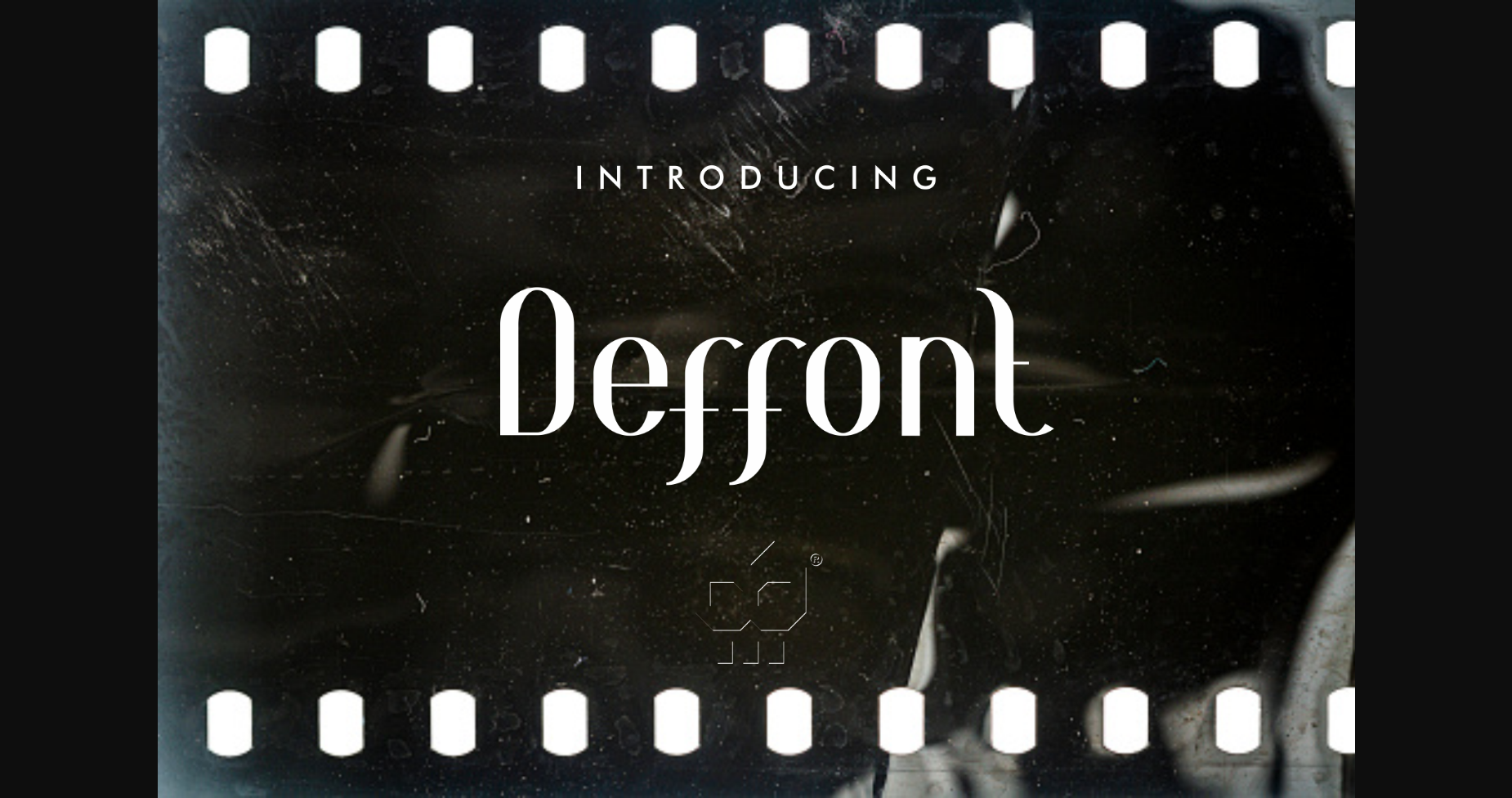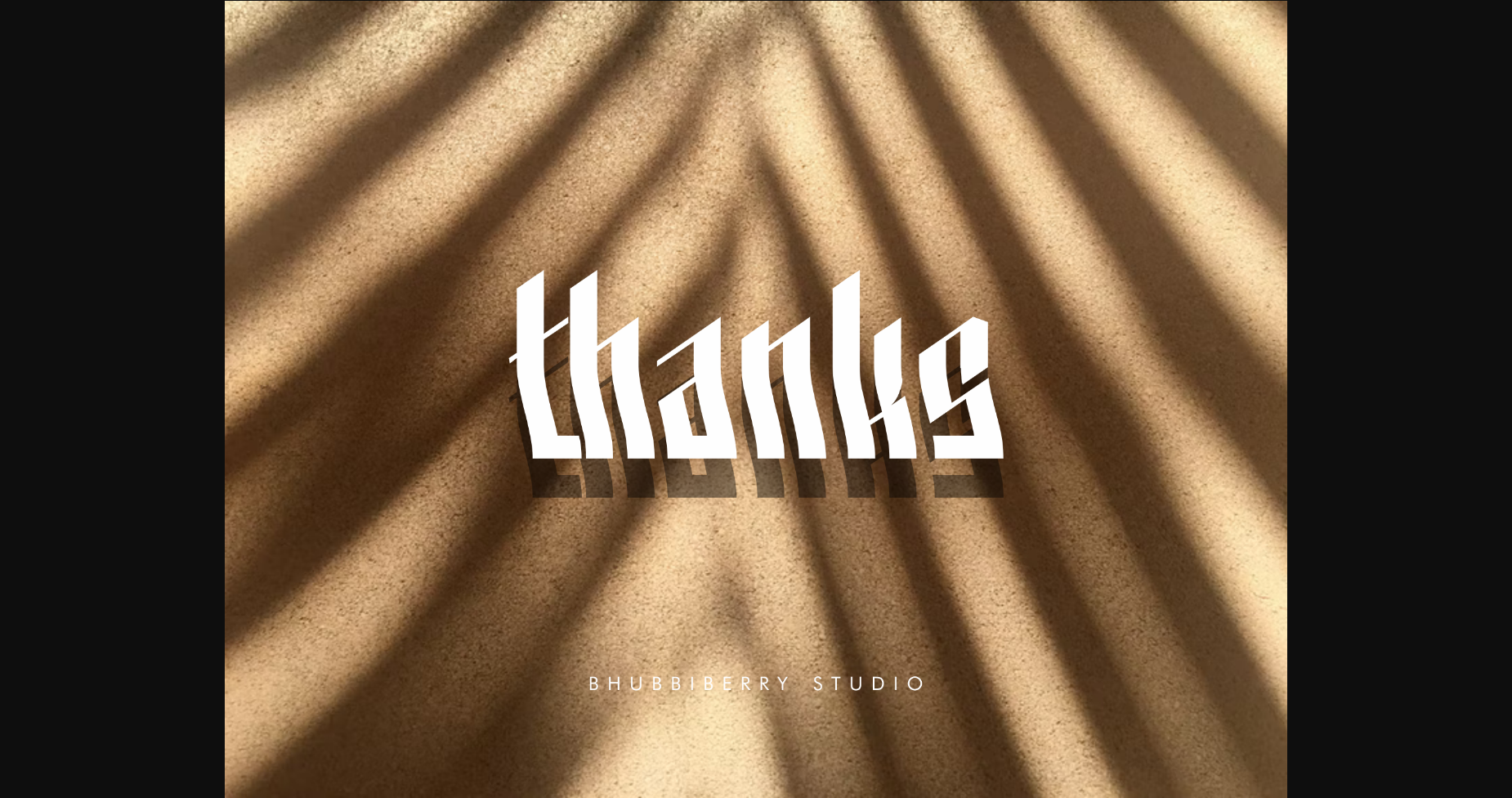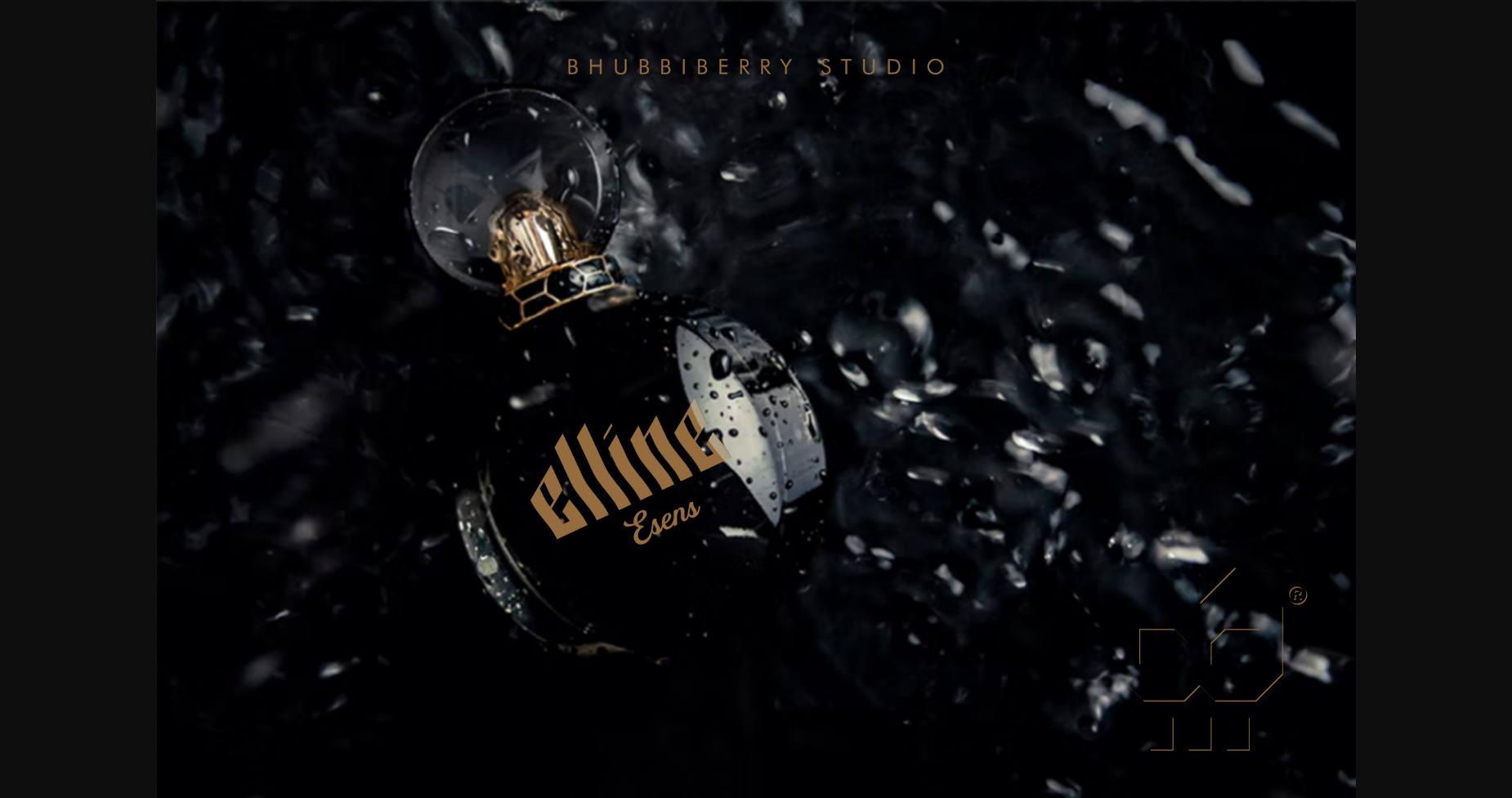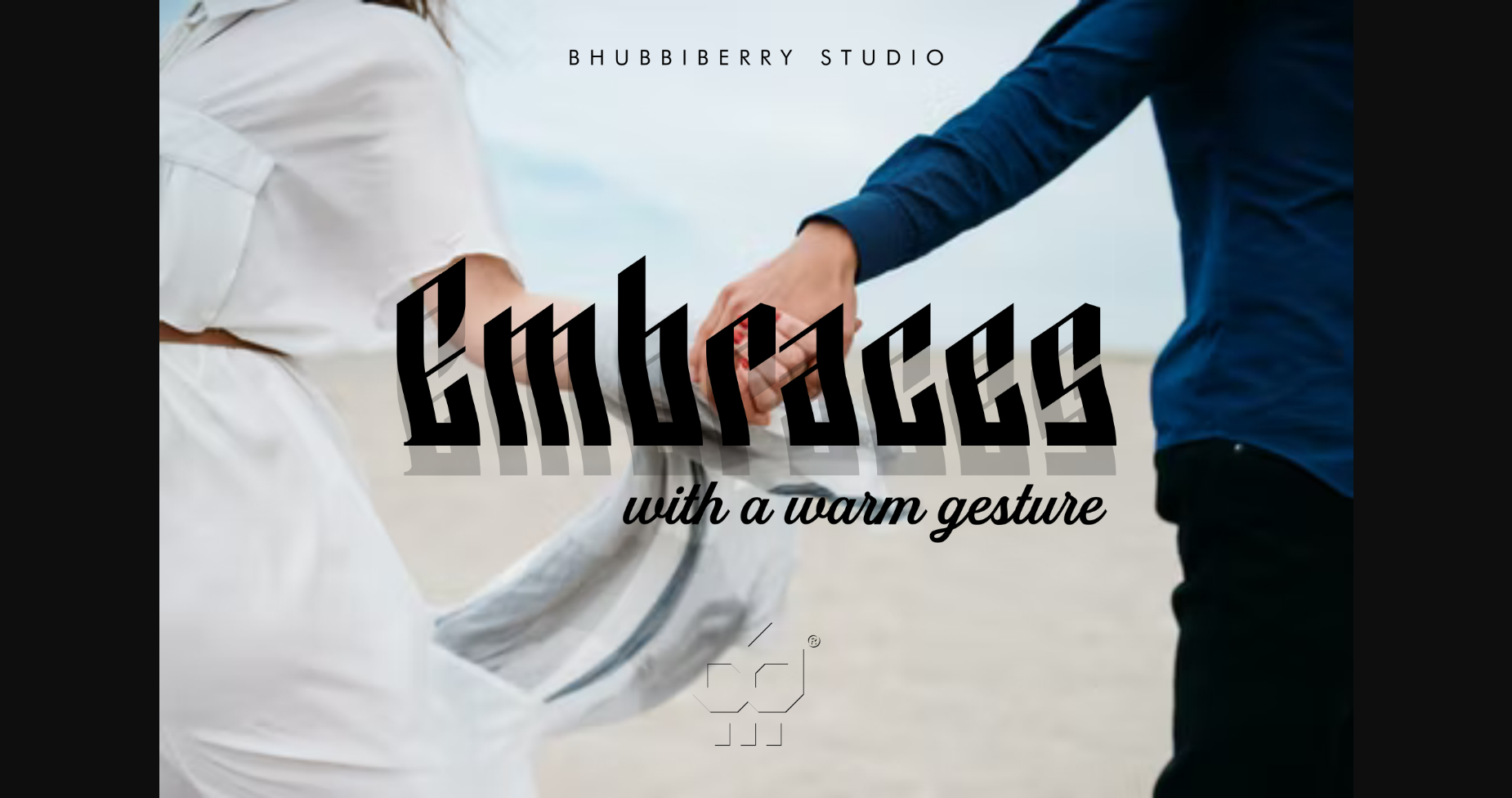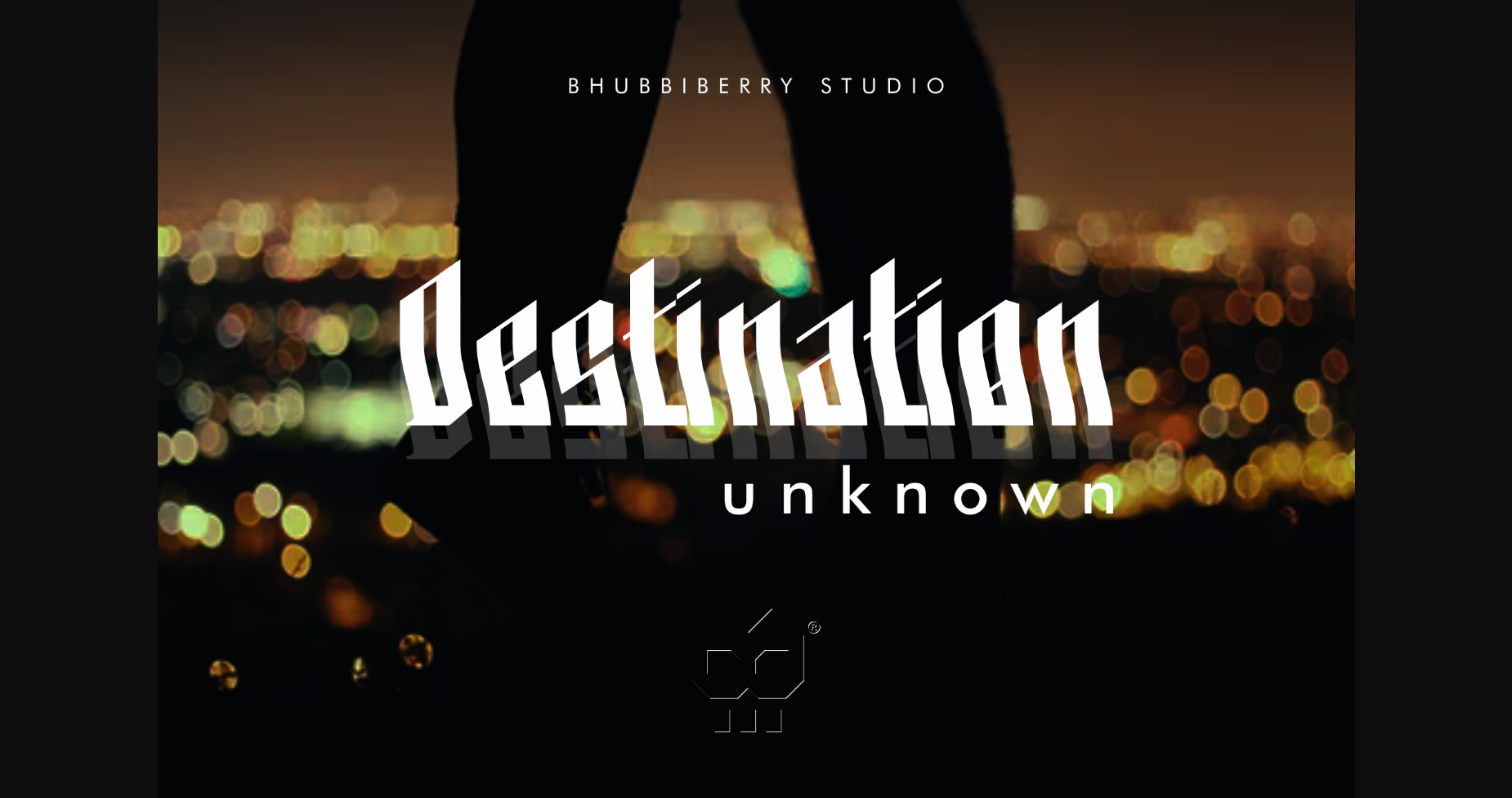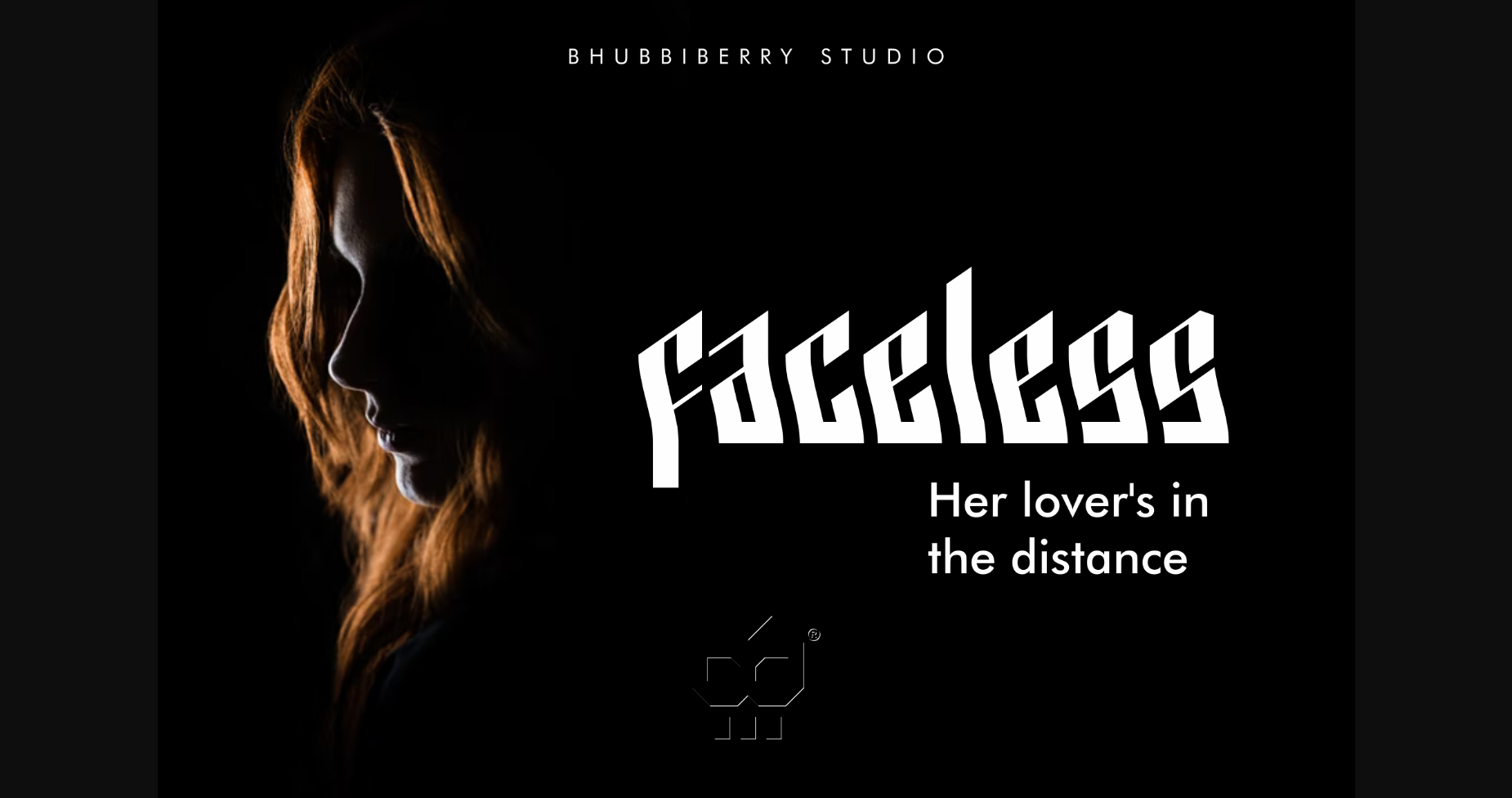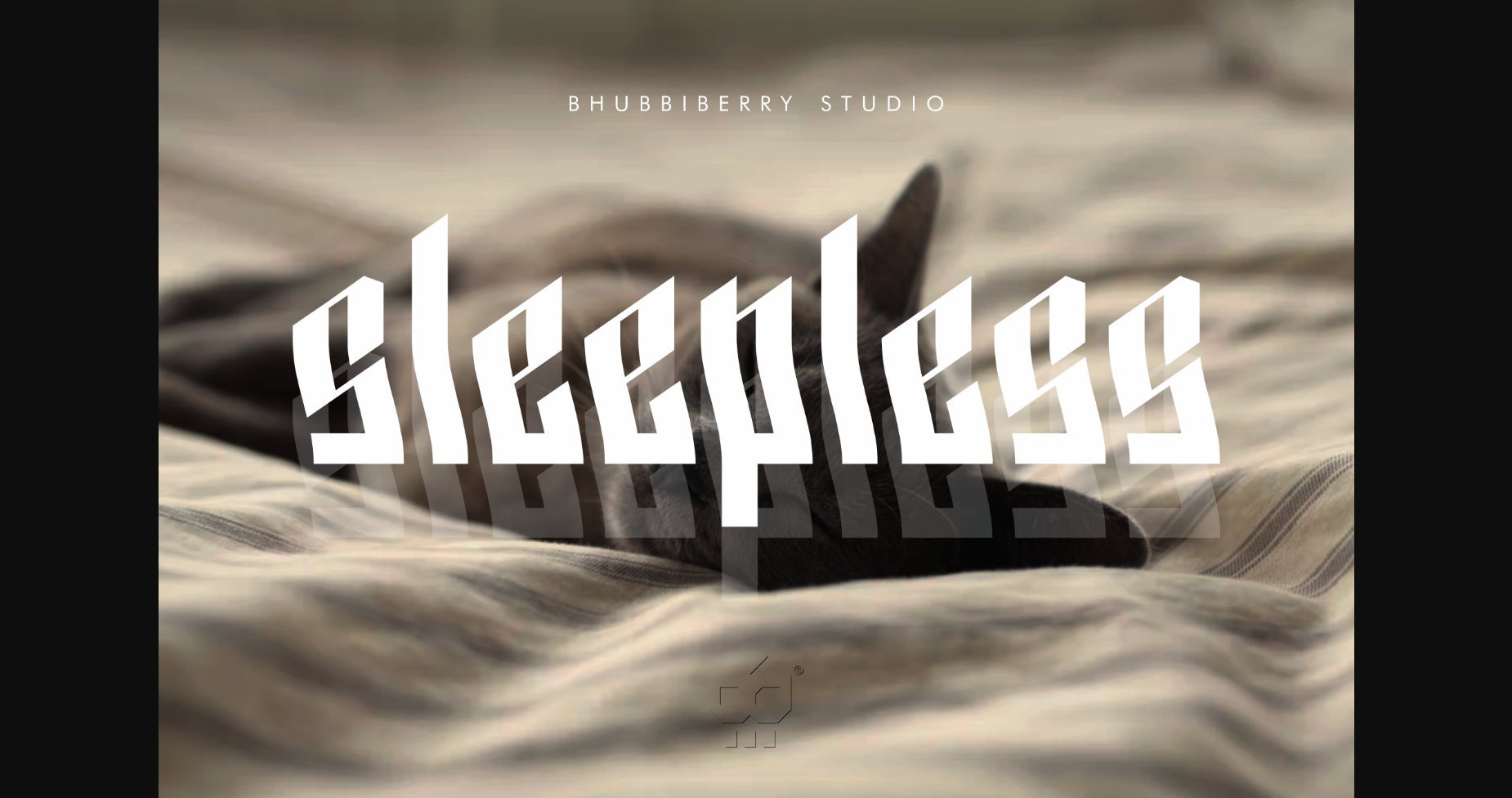
Deffont
About Deffont
Deffont is a stylish and clean sans serif font. It is perfect for any branding project such as logos, t-shirt printing, creative products, and more.